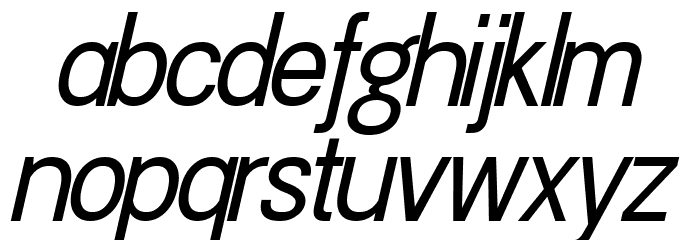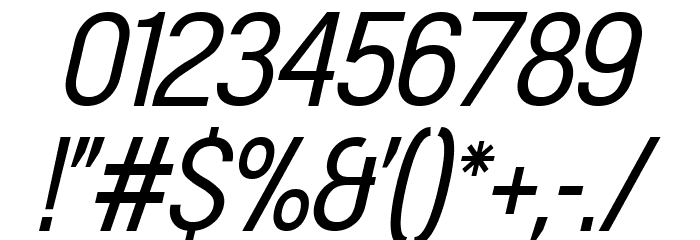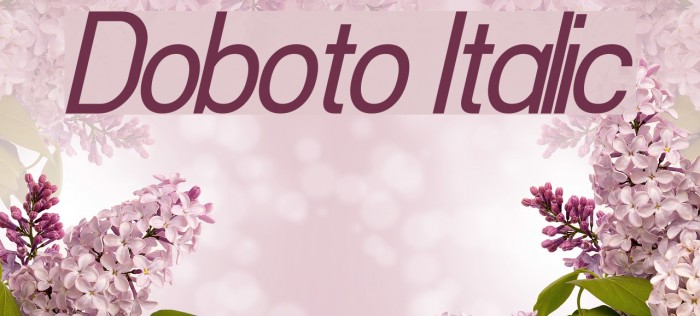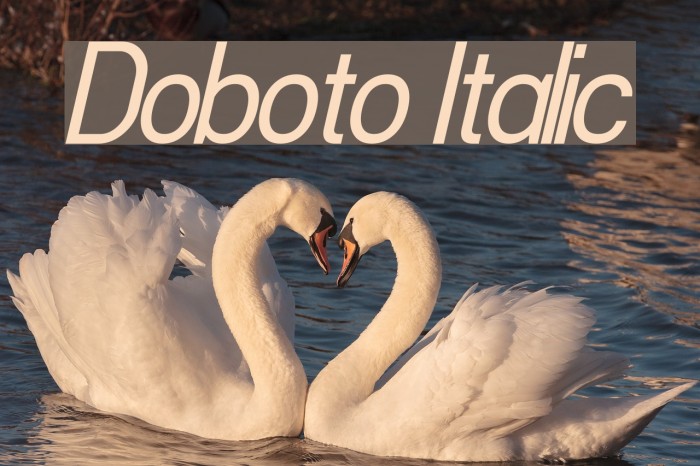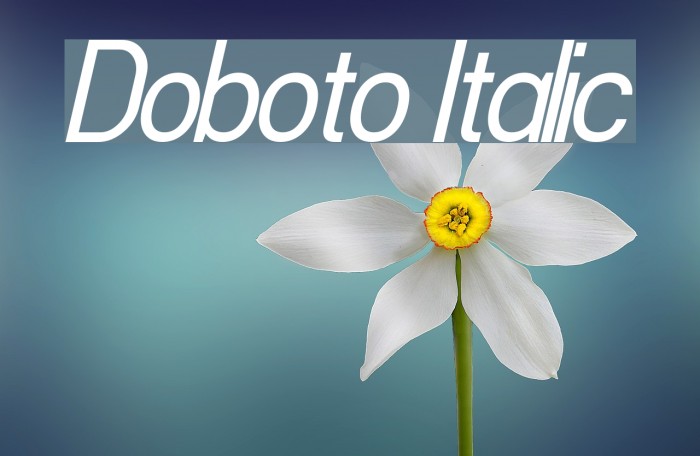
Doboto Italic Font
This font features a sleek and modern italic style, characterized by its slanted and streamlined letterforms. The uppercase and lowercase letters maintain a consistent angle, providing a sense of motion and elegance. The numerals and special characters are designed to complement the alphabet, ensuring readability and style. The font's clean lines and smooth curves make it suitable for contemporary design projects where a touch of sophistication is desired. Its italic nature adds a dynamic quality, making it ideal for emphasis in text or for creating a stylish, modern aesthetic.
A sleek, modern italic font with streamlined letterforms and elegant curves.
- Proposed Projects: Ideal for modern branding, fashion magazines, dynamic web design, and elegant invitations.